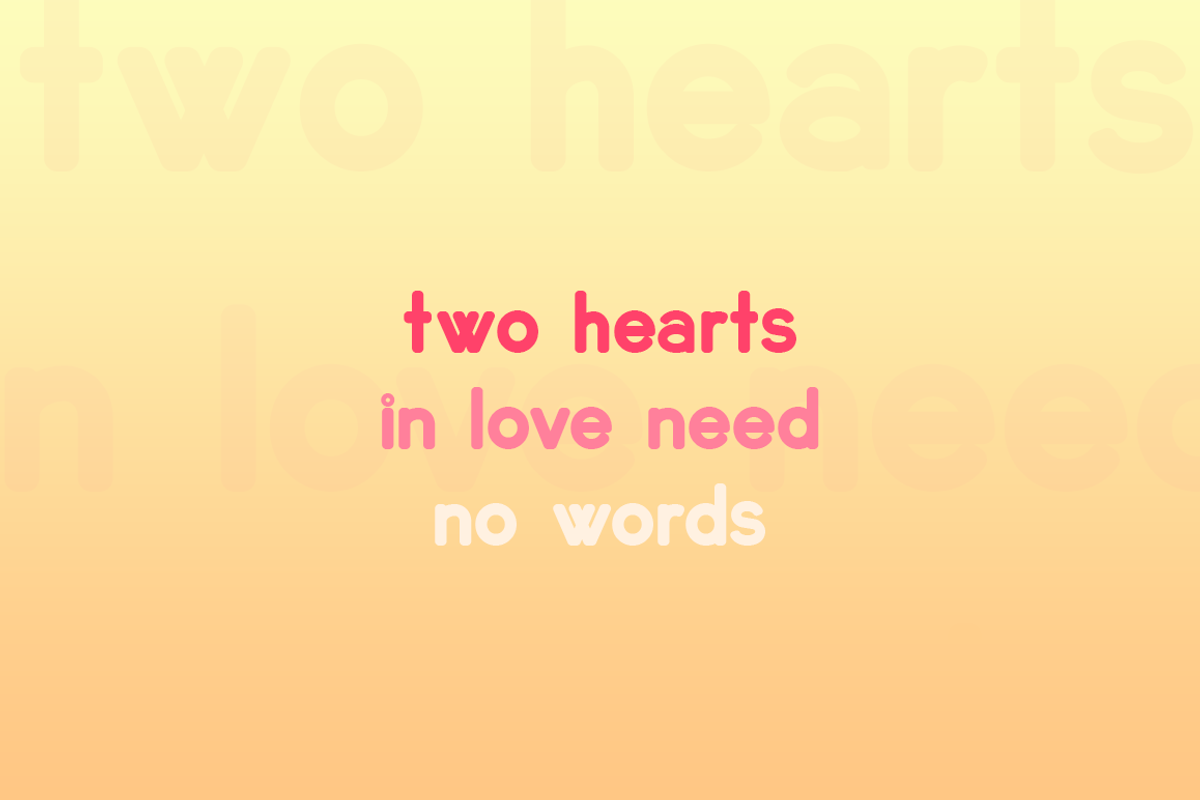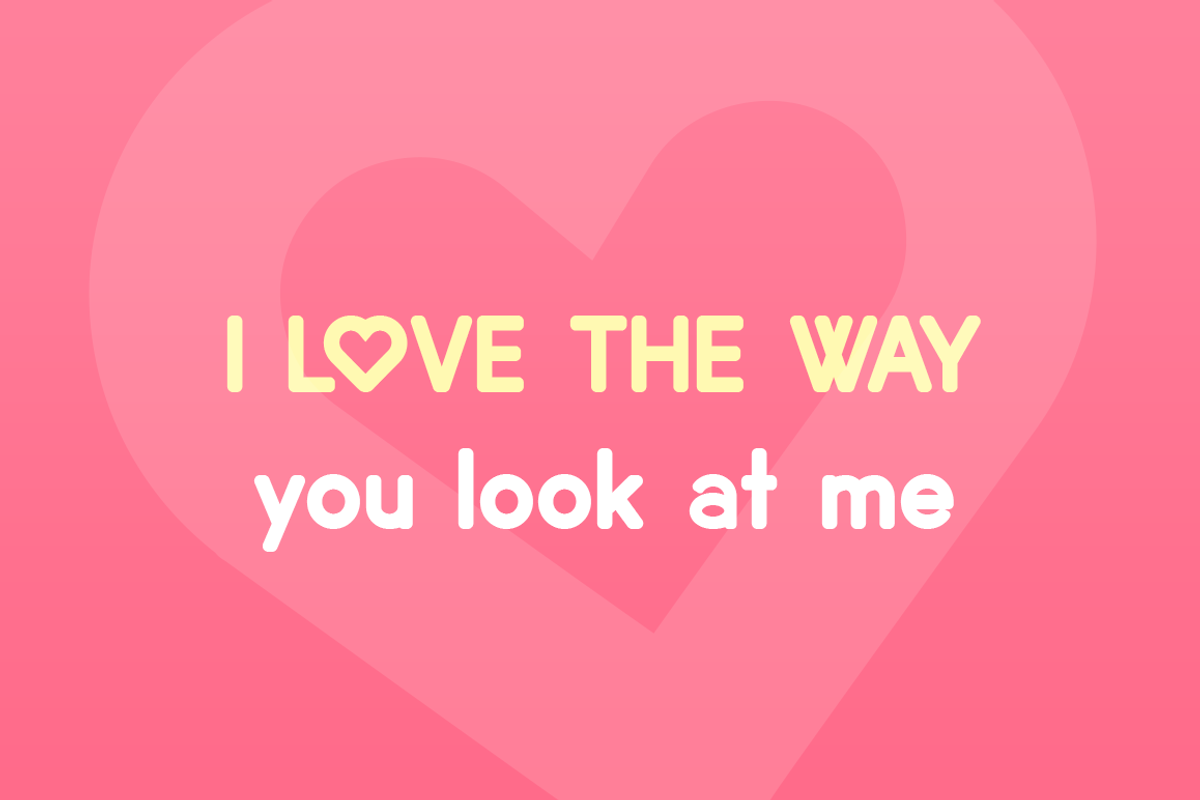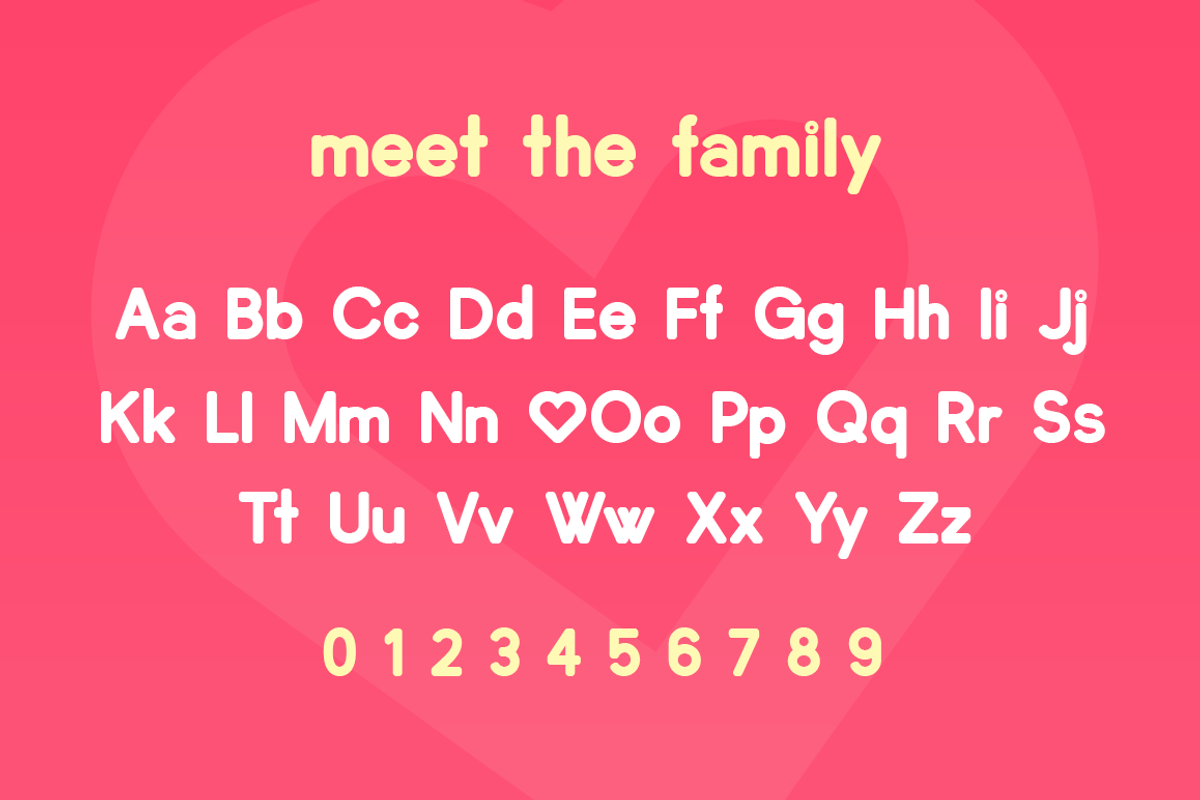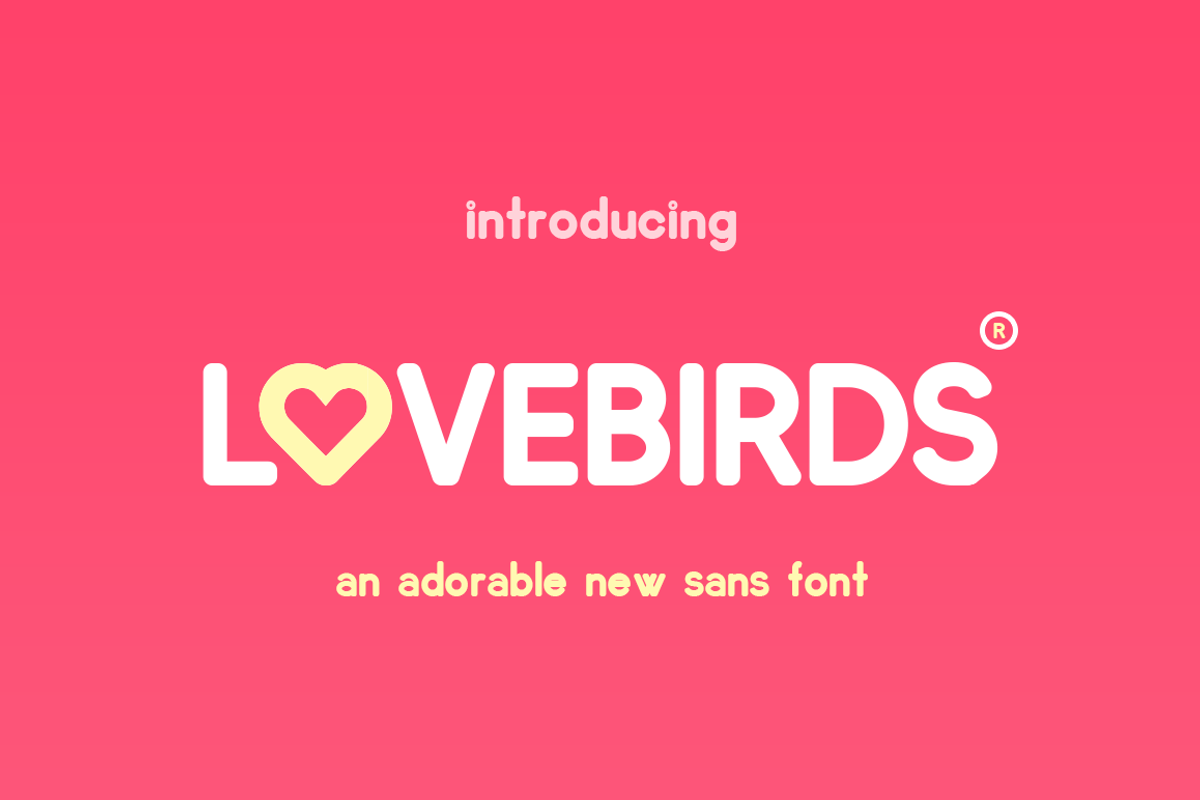
Lovebirds Font
Lovebirds is a fabulous new font that is easy to pair with others and yet strong enough to stand alone! For all of you lovers out there and if you’re not in love, but love fonts.. this one’s for you too!
Why Lovebirds Font is worth a look
Lovebirds Font by Salt & Pepper Designs fits naturally into Branding, posters, packaging, typography.